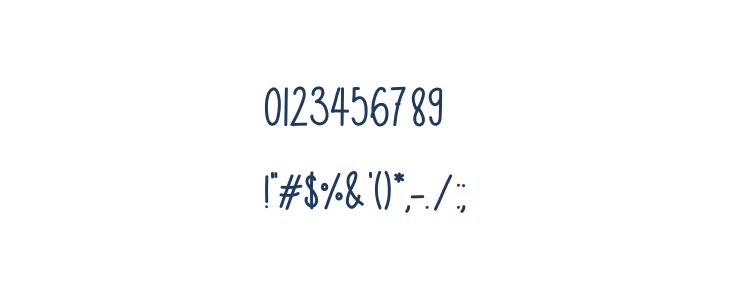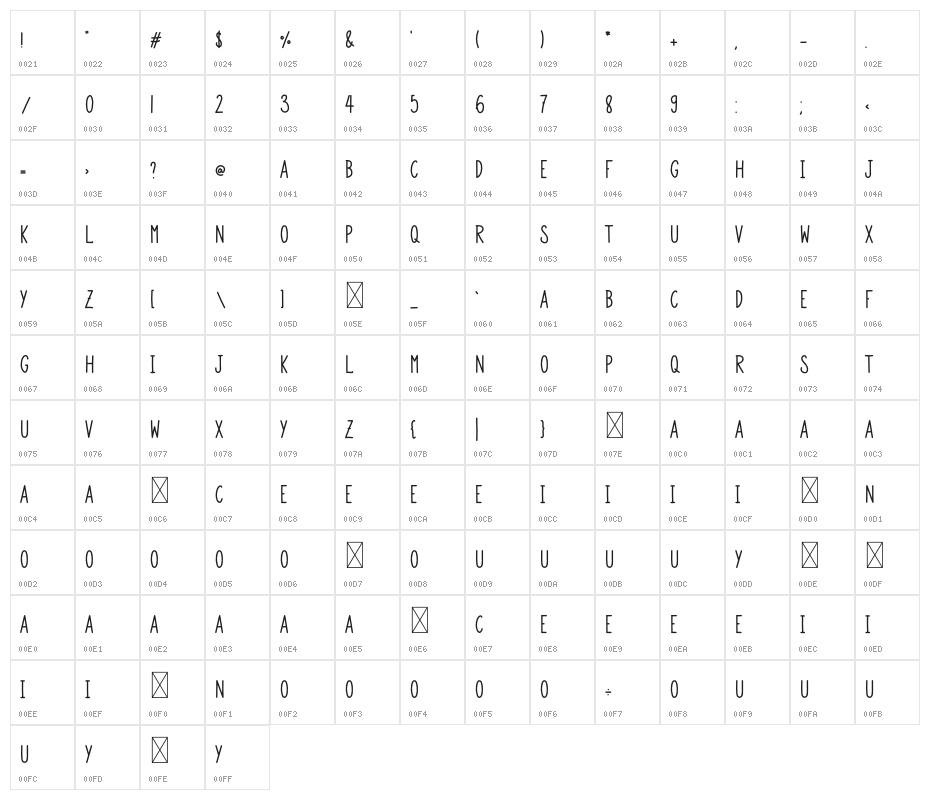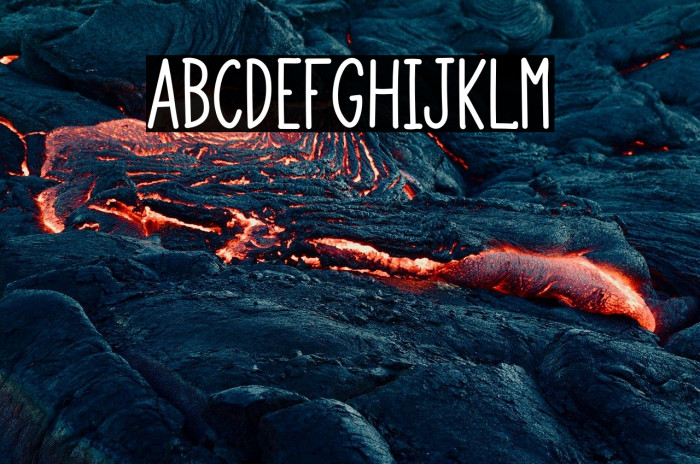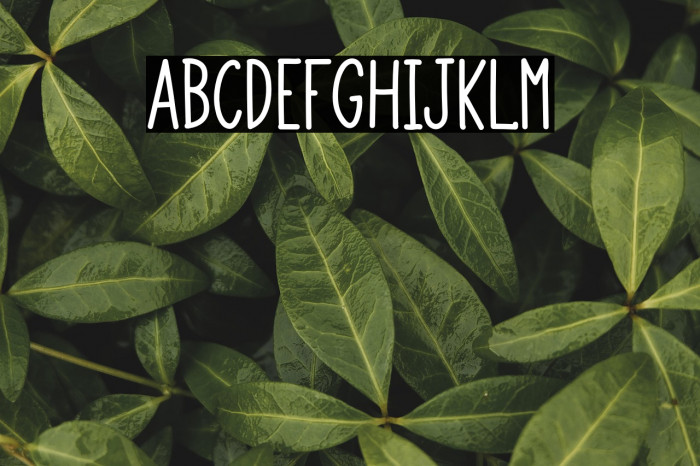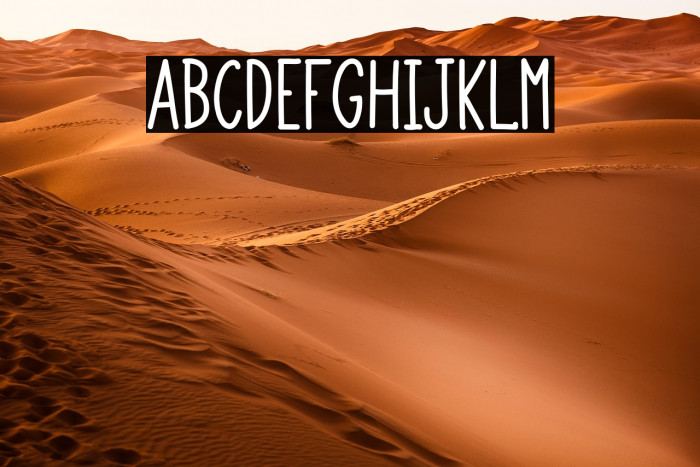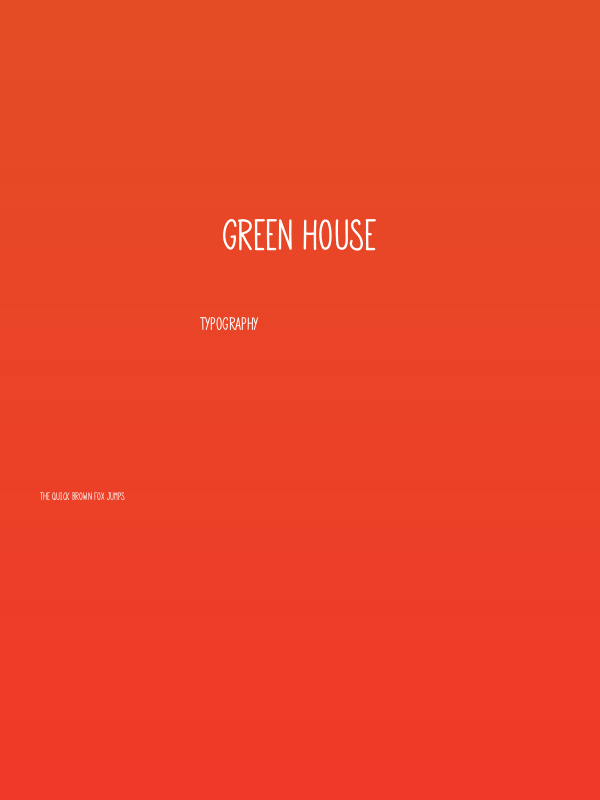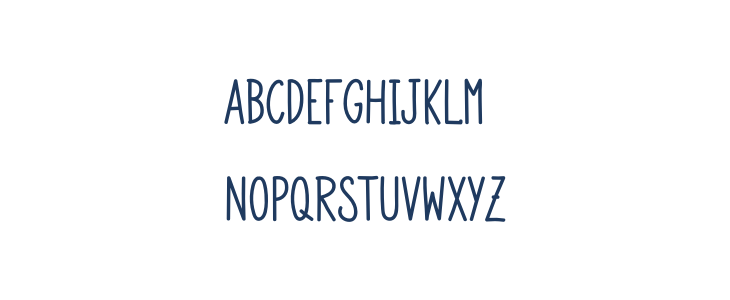
Green House Font
Green House Description
This font features a playful and casual handwritten style, characterized by its slightly uneven strokes and organic flow. The letters are tall and narrow, giving it a unique, whimsical appearance. The uppercase and lowercase letters maintain a consistent style, with rounded edges and a friendly demeanor. The numerals and special characters complement the alphabet with similar playful curves and a slightly informal touch. This font exudes a sense of approachability and creativity, making it suitable for projects that require a personal and engaging touch.
| Proposed Projects | Ideal for children's books, greeting cards, playful branding, and creative posters. |